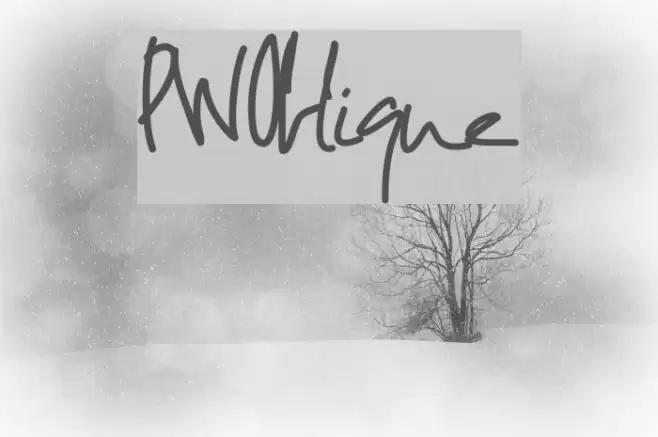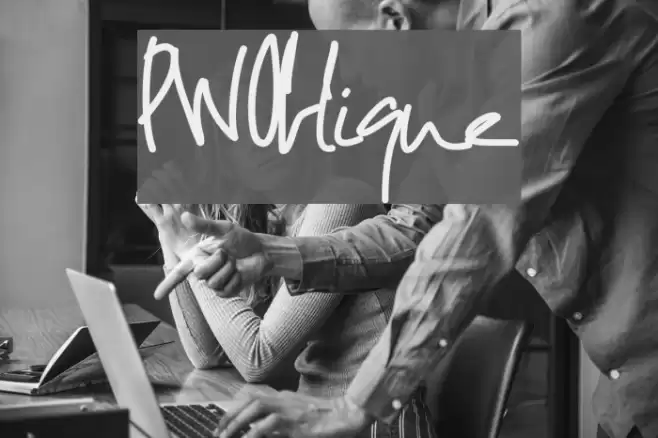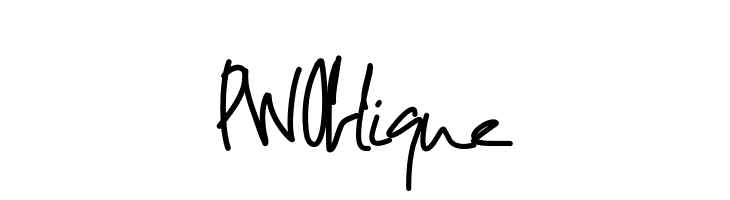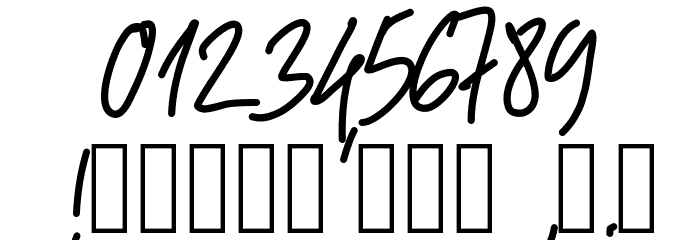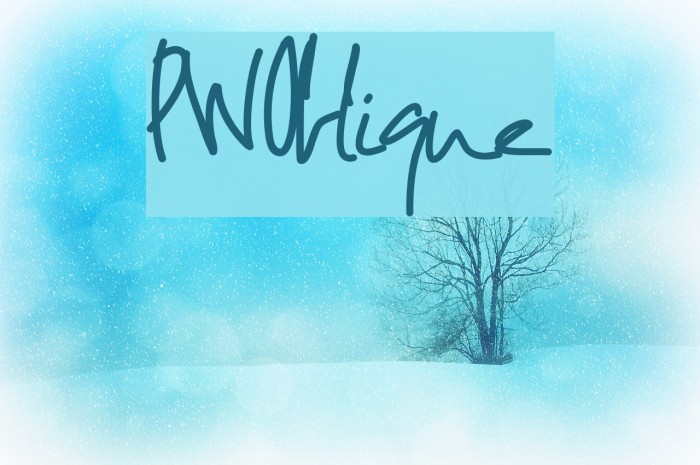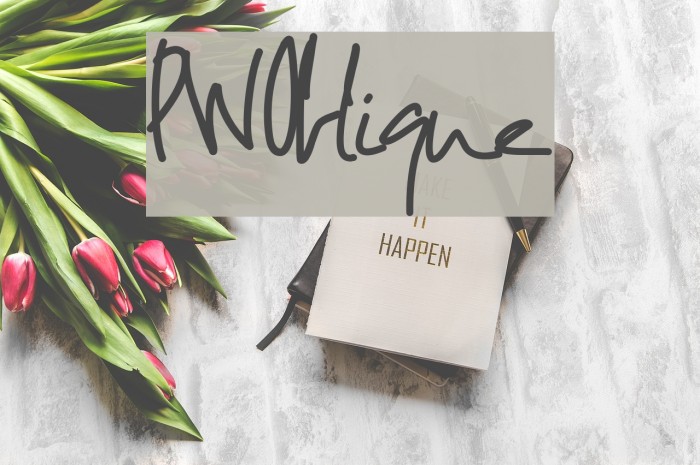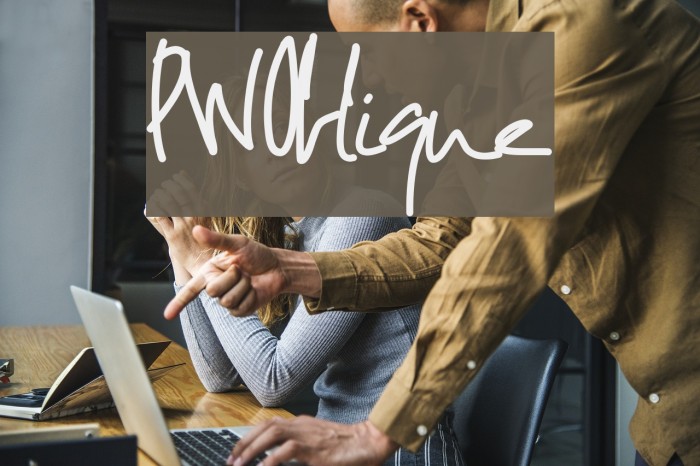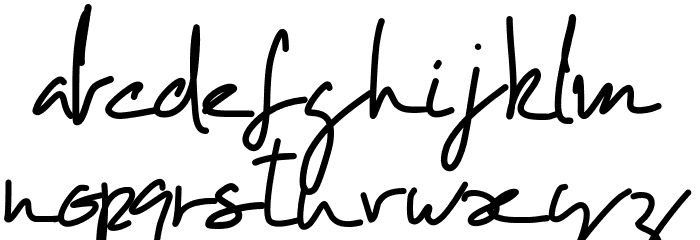
PWOblique Font
PWOblique Description
This font exhibits a dynamic and energetic handwritten style, characterized by its oblique orientation and fluid strokes. The uppercase letters are bold and slightly slanted, giving a sense of movement and spontaneity. The lowercase letters maintain a consistent flow, with some letters featuring distinctive loops and curves that enhance its casual aesthetic. The numerals are clear and legible, matching the overall informal style of the alphabet. Special characters are integrated seamlessly, maintaining the playful and expressive nature of the font. This style is perfect for projects that require a personal touch or a creative flair.
A dynamic, handwritten font with an oblique, energetic style from Handwritten fonts.
- Proposed Projects: Ideal for greeting cards, invitations, personal branding, and creative projects that require a handwritten touch.
- Overall Style: Casual, Energetic, Playful
- Use Case: Headlines, Personal projects, Creative designs